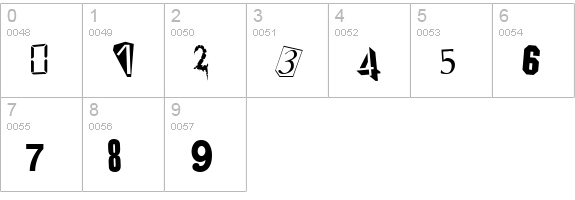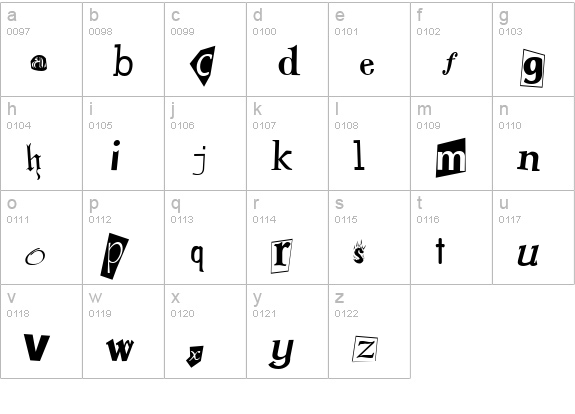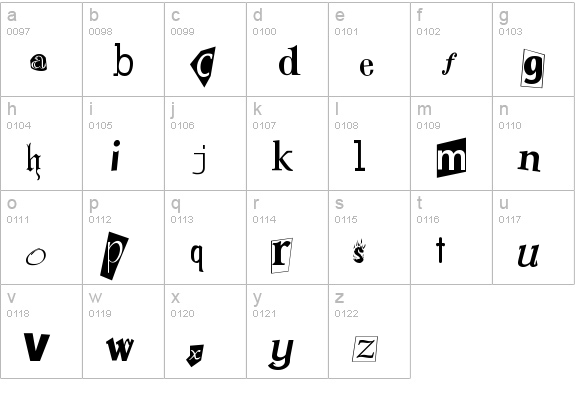
Ransom Regular is the standard, neutral variant in the Ransom typeface family \xE2\x80\x94 well suited to general body text, paragraphs, and standard typographic work.
Ransom Regular font is a striking and versatile typeface that exudes a sense of mystery and intrigue. With its bold and sharp letterforms, this font captures attention and demands to be noticed. Perfect for creating eye-catching headlines, logos, and posters, Ransom Regular font adds a touch of edginess and sophistication to any design. What sets Ransom Regular font apart is its unique ability to convey a sense of urgency and drama. Its thick strokes and angular shapes create a sense of tension and anticipation, making it ideal for projects that require a bold statement. Whether you are designing a movie poster or a book cover, Ransom Regular font will captivate your audience and leave a lasting impression. One of the best things about Ransom Regular font is that it is freely available to download at FontsMarket.com. This means that you can easily access this font and start using it in your projects without any hassle. Whether you are a professional designer or a hobbyist, Ransom Regular font gives you the freedom to unleash your creativity and bring your ideas to life. With its wide range of characters and language support, Ransom Regular font is suitable for a variety of design applications. From fashion and beauty to music and entertainment, this font adds a touch of elegance and sophistication to any project. Its versatility allows it to adapt to different design styles and themes, making it a valuable asset for any creative endeavor. In conclusion, Ransom Regular font is a captivating and versatile typeface that adds a touch of drama and sophistication to any design. With its bold letterforms and unique style, this font commands attention and leaves a lasting impression. Best of all, it is freely available to download at FontsMarket.com, allowing you to unleash your creativity without any constraints.